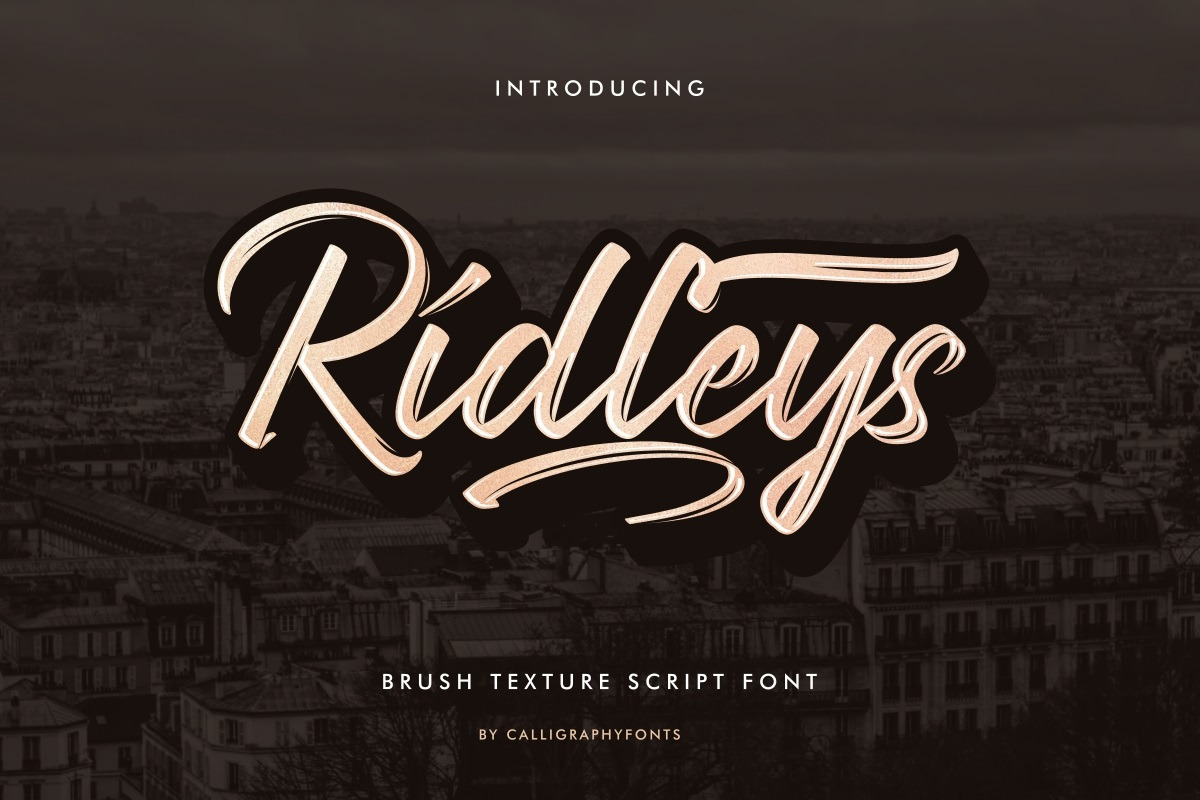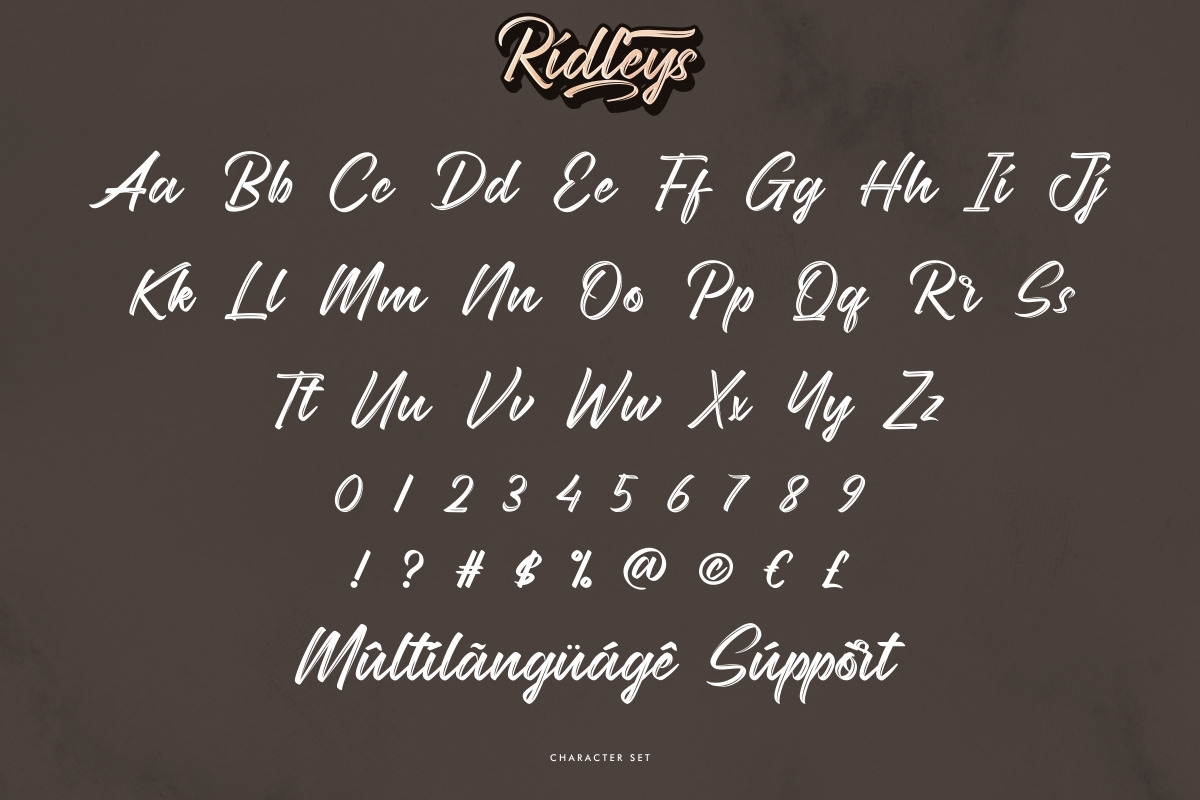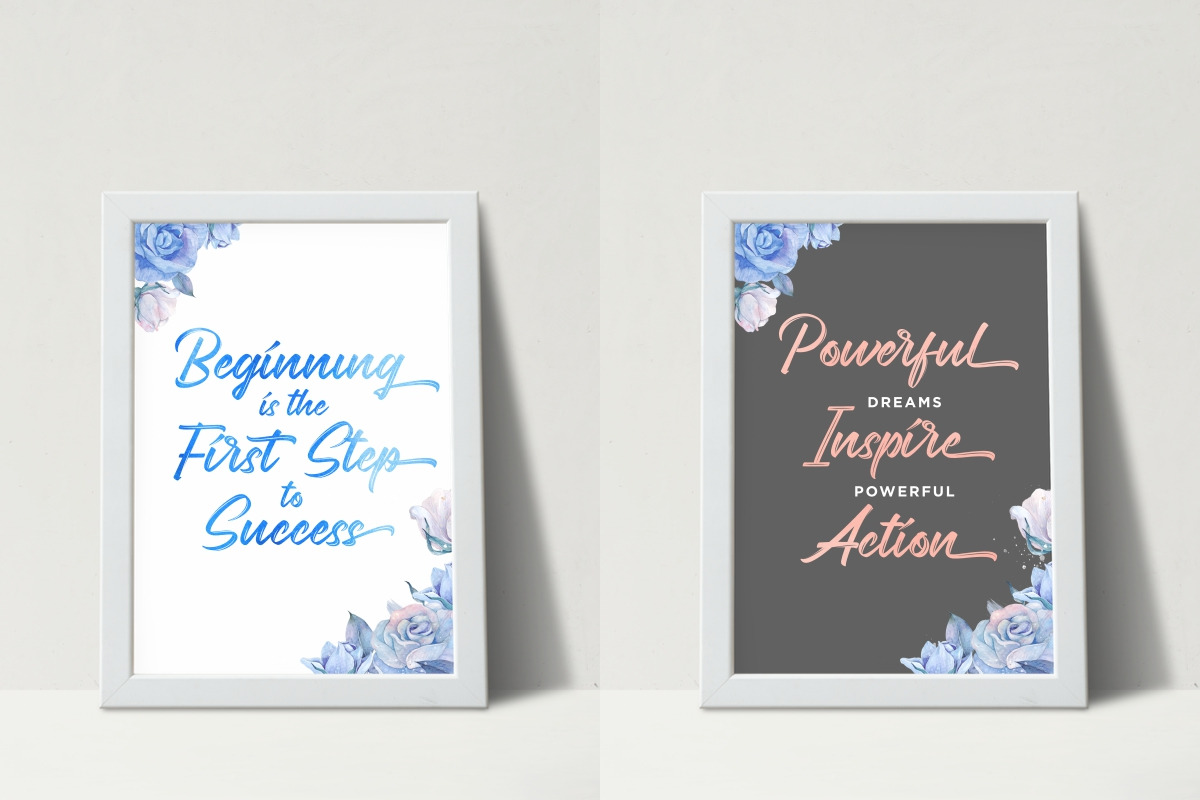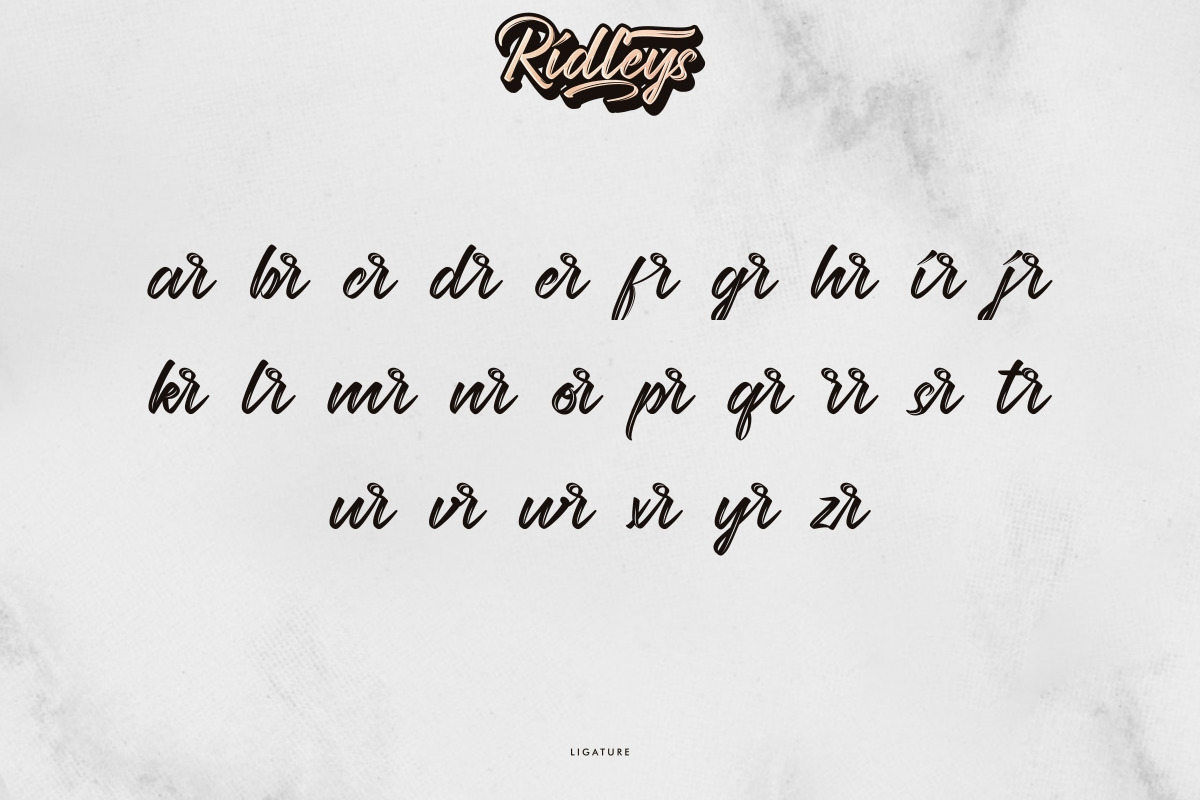
Ridleys Handwritten Brush Font
Ridleys is a textured handmade brush font. The style of this font are stylish, classic, elegant, vintage and strong brush font.